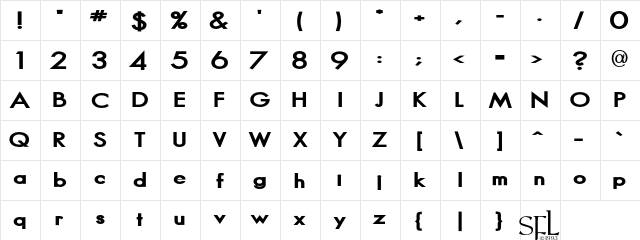
Magnus Regular
Design Context for Magnus Typeface
Magnus is a composed and adaptable typeface that performs quietly and consistently across a wide range of design contexts.